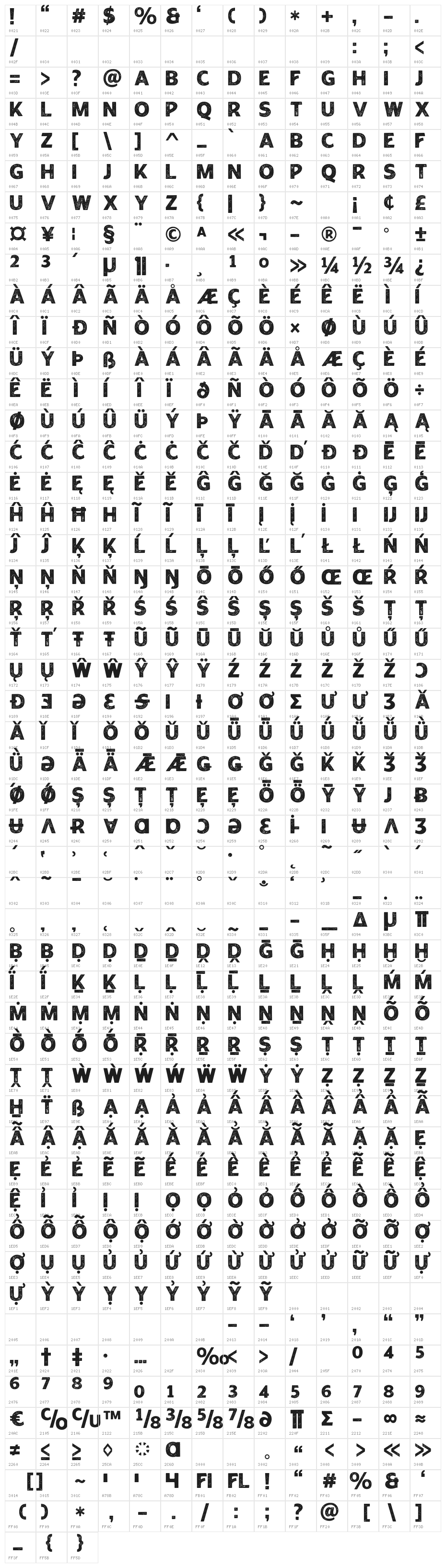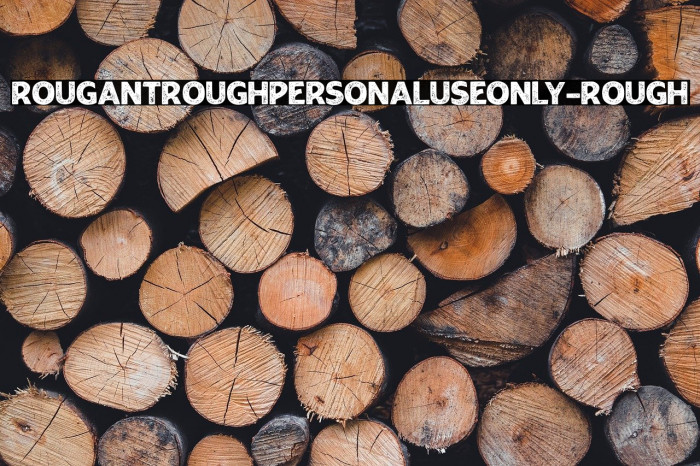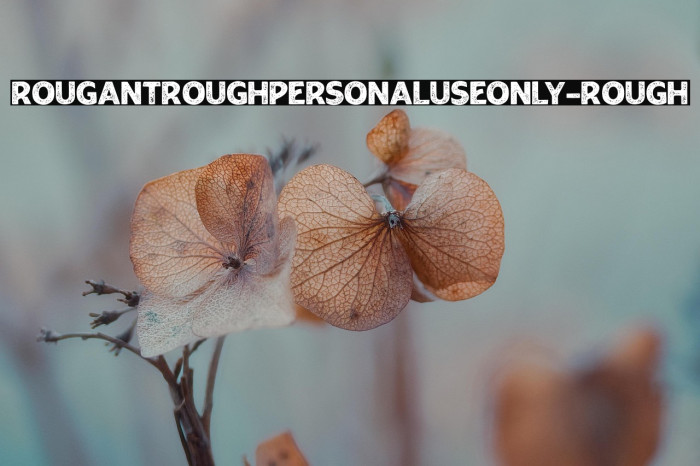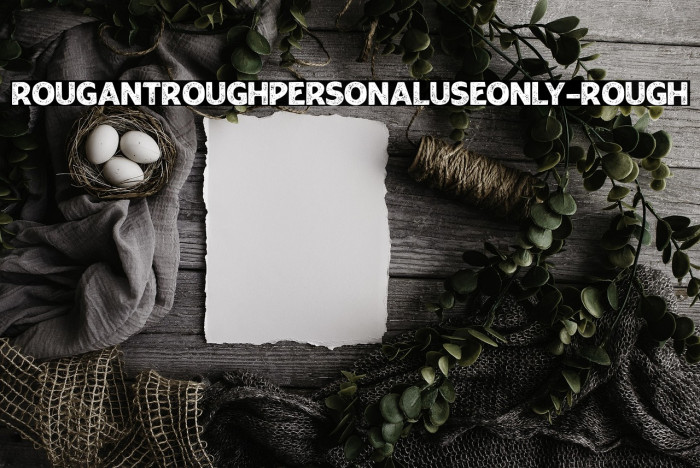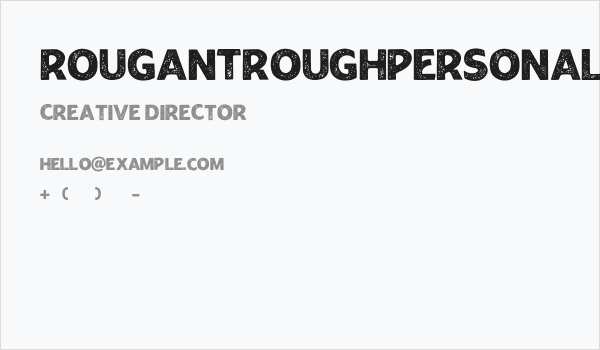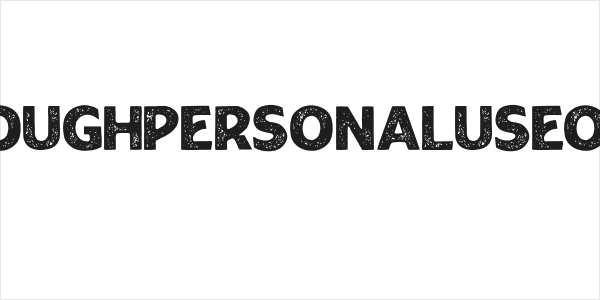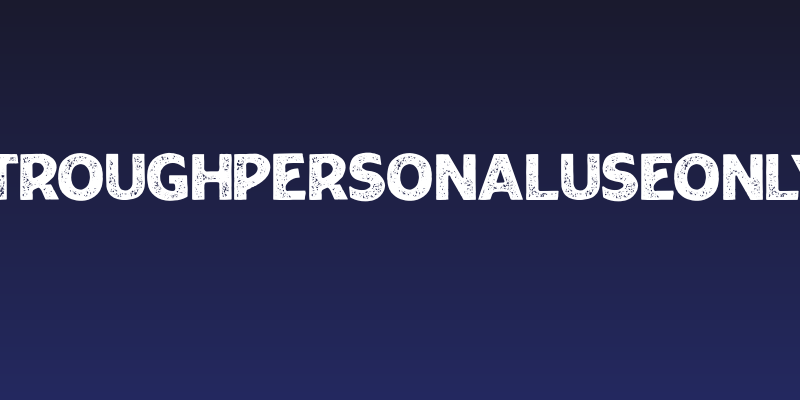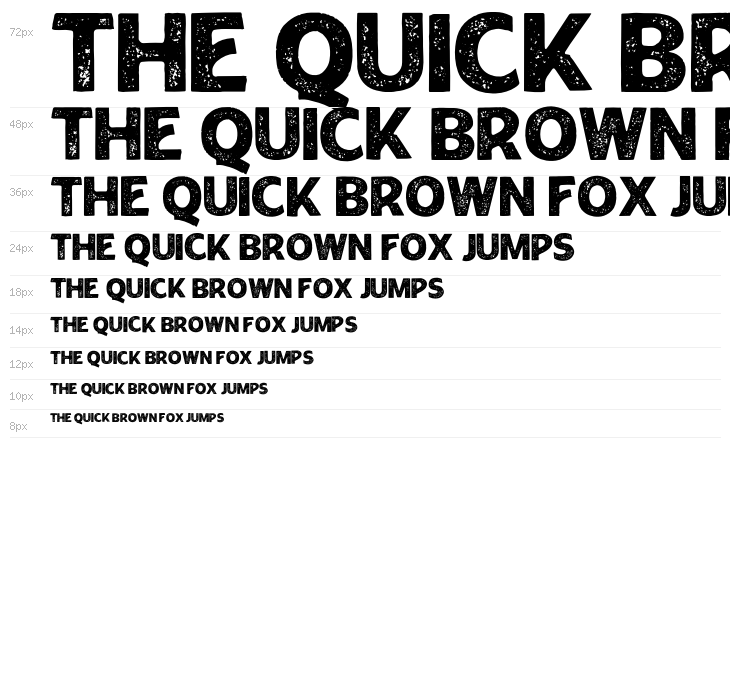
RougantRoughPERSONALUSEONLY-Rough Font
RougantRoughPERSONALUSEONLY-Rough Description
This font features a bold, textured style with a rough, distressed appearance. The characters are uppercase and have a slightly uneven, hand-crafted look, giving them a vintage and rugged feel. The texture within each letter adds a unique, worn effect, making it ideal for projects that require a rustic or industrial aesthetic. The font maintains a consistent weight throughout, with wide character spacing that enhances readability while preserving its distinctive style. The rough texture is prominent, providing a high contrast against clean backgrounds.